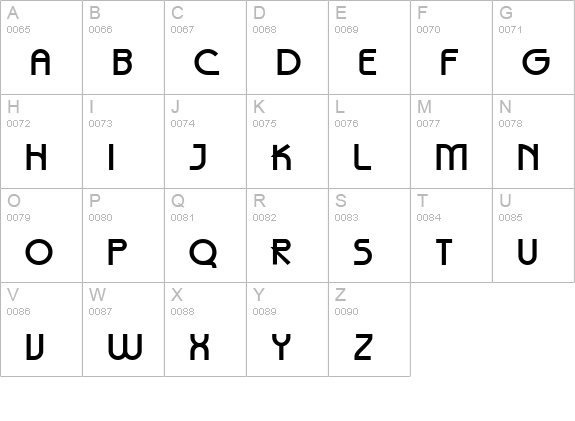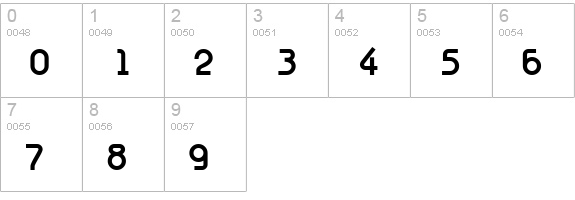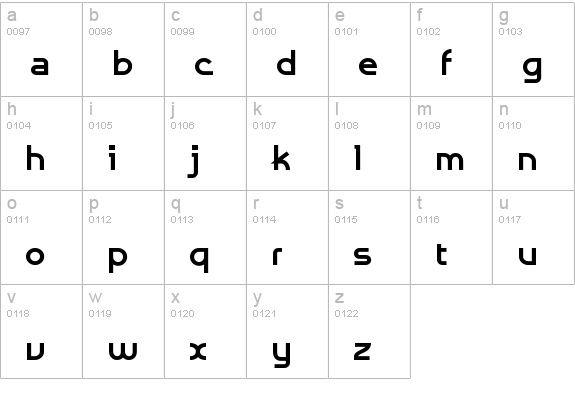
GalexicaExtraBold Font Details
GalexicaExtraBold font is a stunning display typeface that exudes power and confidence. Its bold and robust design commands attention and makes a strong visual impact. The thick and prominent letterforms are expertly crafted to create a sense of authority and presence. With its unique combination of sharp edges and smooth curves, GalexicaExtraBold font is perfect for headlines, logos, posters, and other design projects that require a bold statement. It is a versatile typeface that can easily adapt to various styles and themes, whether it be for modern and sleek designs or vintage and retro aesthetics. What sets GalexicaExtraBold font apart is that it is not only visually striking, but it is also freely available for download at FontsMarket.com. This means that designers and creatives can access this remarkable font without any cost, making it a valuable asset for both personal and commercial projects. Whether you are working on a branding project, advertising campaign, or simply looking to add a touch of boldness to your designs, GalexicaExtraBold font is the perfect choice. Its contemporary yet timeless aesthetic, coupled with its availability for free download, makes it an essential addition to any designer's toolkit. So, unleash your creativity and make a bold statement with GalexicaExtraBold font.